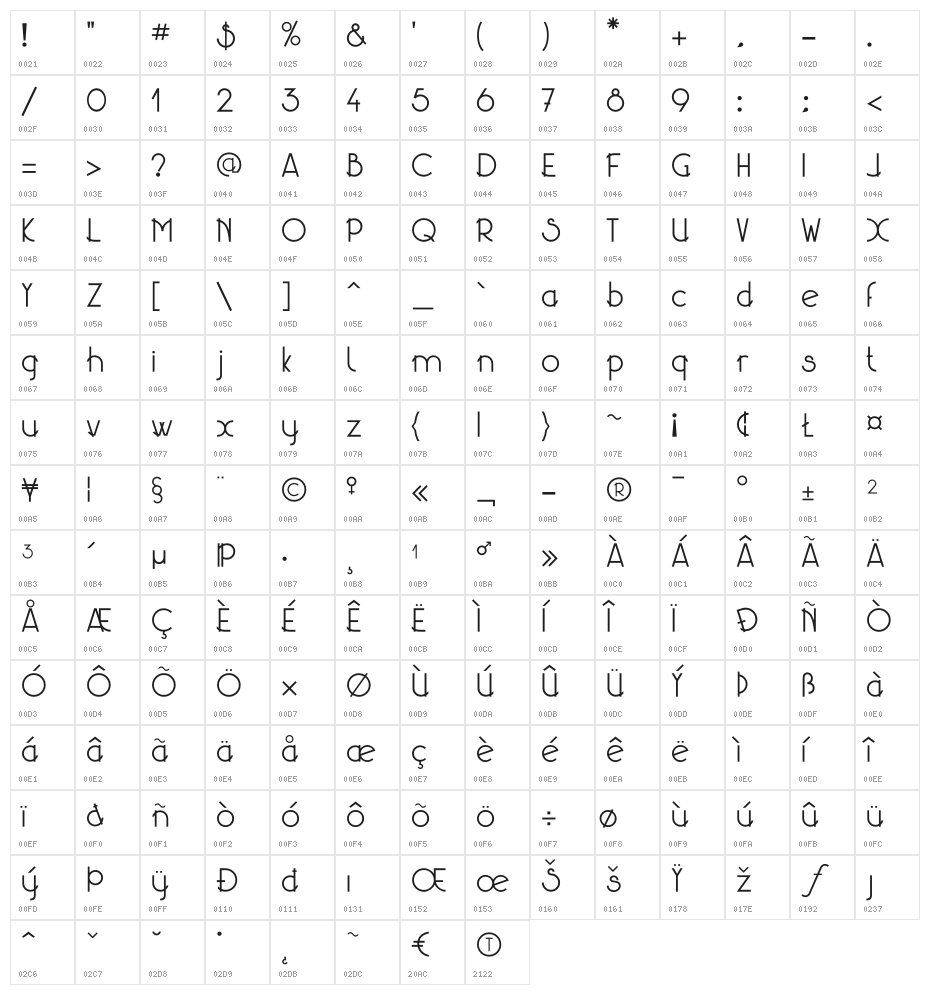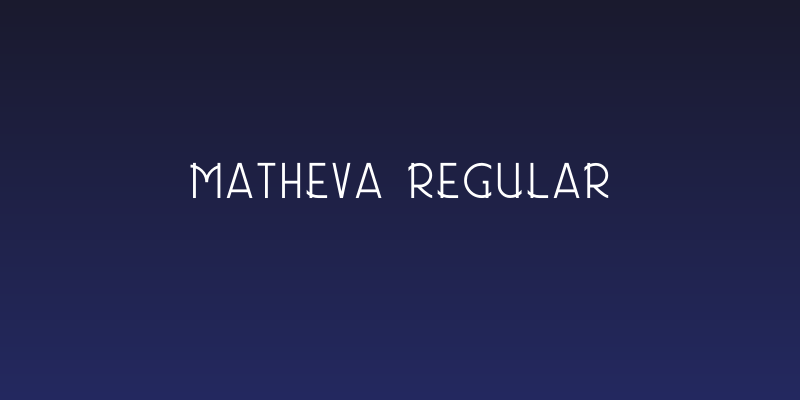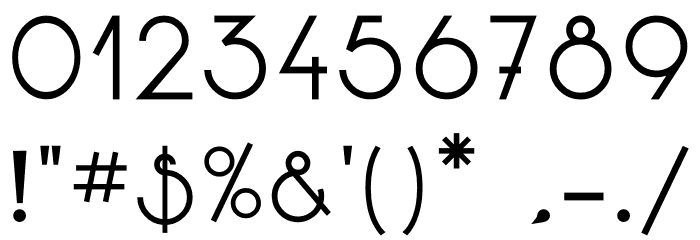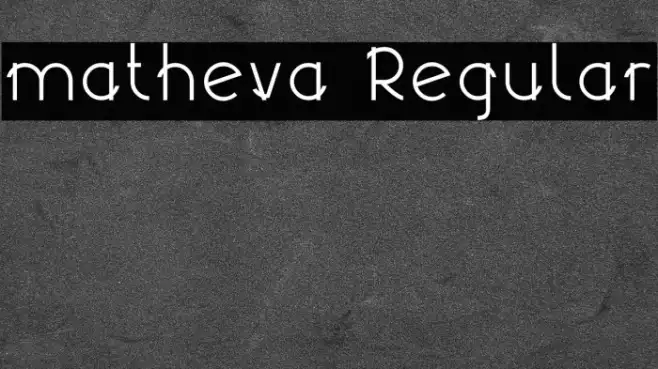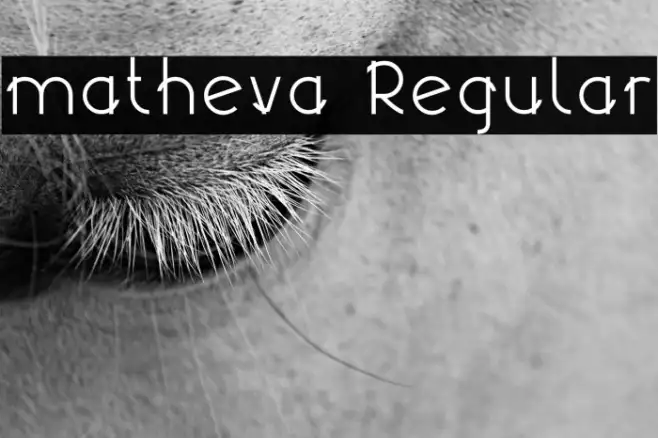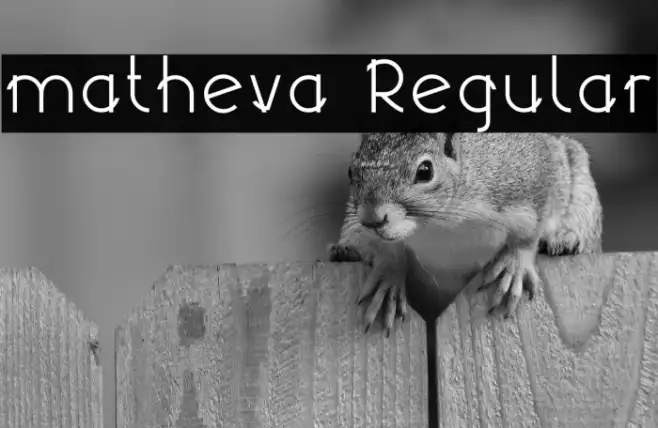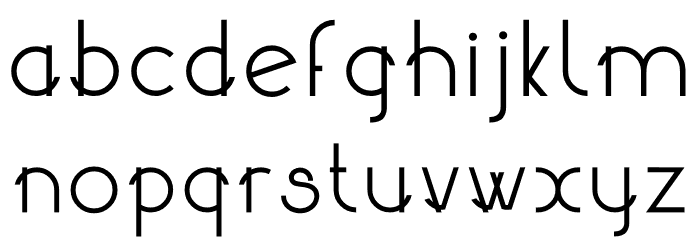
matheva Regular Font
matheva Regular Description
This font features a unique and playful design with a modern twist. The characters are constructed with a combination of straight lines and subtle curves, creating a sense of movement and dynamism. The uppercase letters are bold and distinct, while the lowercase letters maintain a consistent style with slight variations in stroke endings. Numbers are clear and legible, and the special characters are designed to match the overall aesthetic. The font's quirky style makes it suitable for creative projects that require a touch of personality.